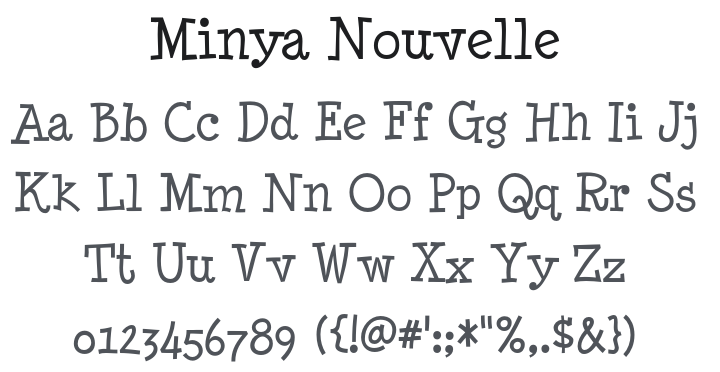
Minya Nouvelle Font Family
About Minya Nouvelle
Minya Nouvelle is a splashy, cartoon-style typeface inspired by typewriters — brawny slab serifs paired with fun-loving curls and whimsical flourishes that give it a playful vintage-meets-comic energy. It's a polished, more refined evolution of the original Minya, available in Regular, Italic, Bold, and Bold Italic. Perfect for children's books, comic-style branding, retro editorial headlines, greeting cards, and any design needing sturdy charm with a spirited, carefree personality.